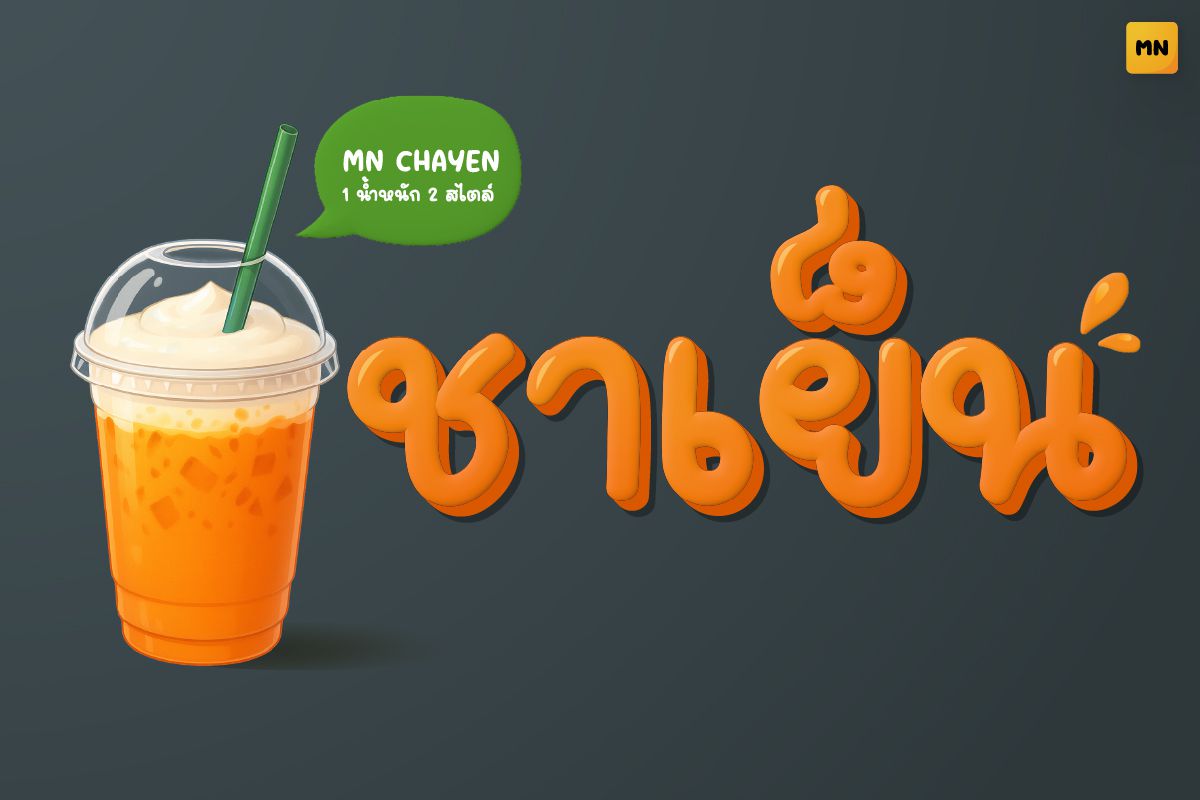
MN CHAYEN Italic
A playful Thai handwriting font with soft, bubbly strokes inspired by creamy drinks. It’s perfect for café branding, menus, and cheerful designs that need a sweet and friendly vibe.